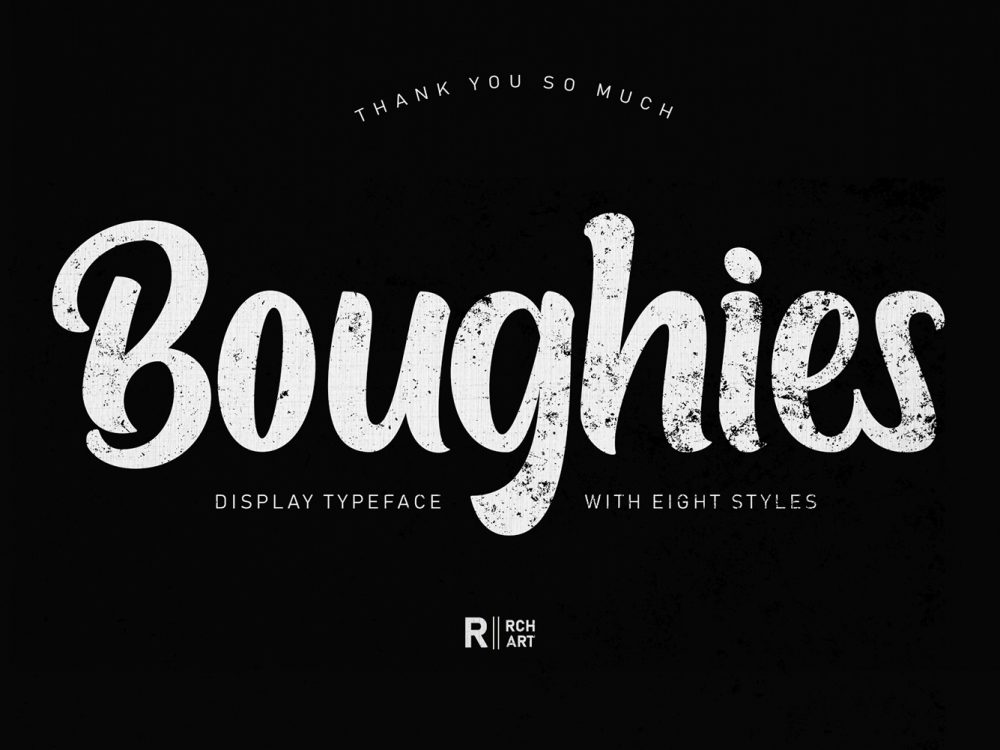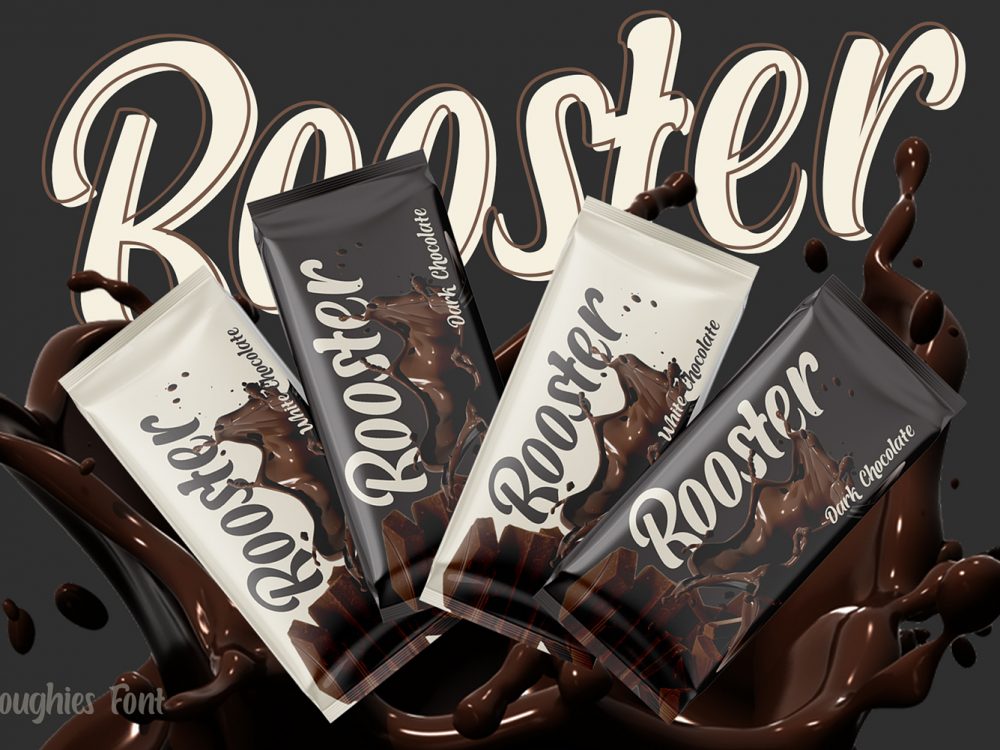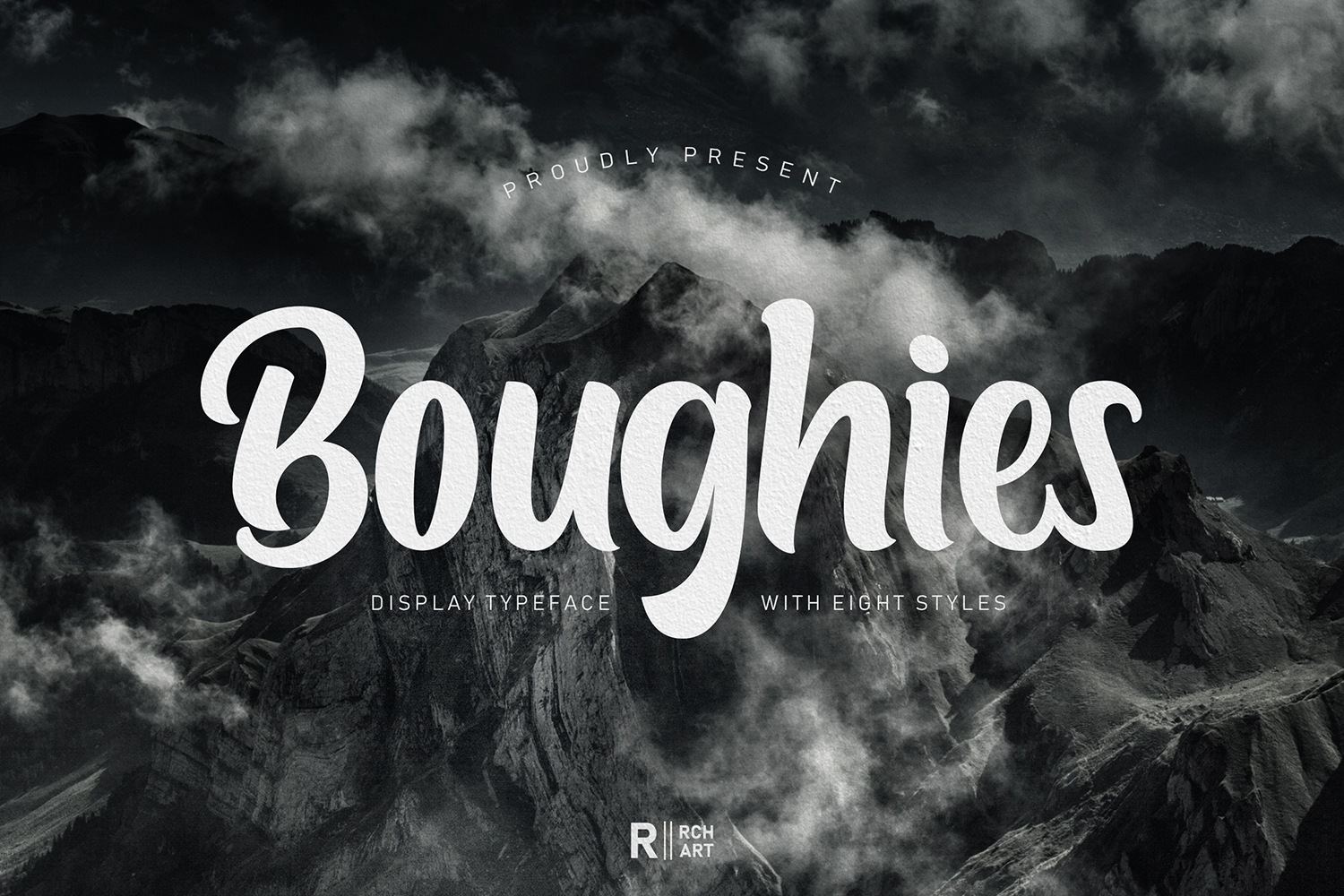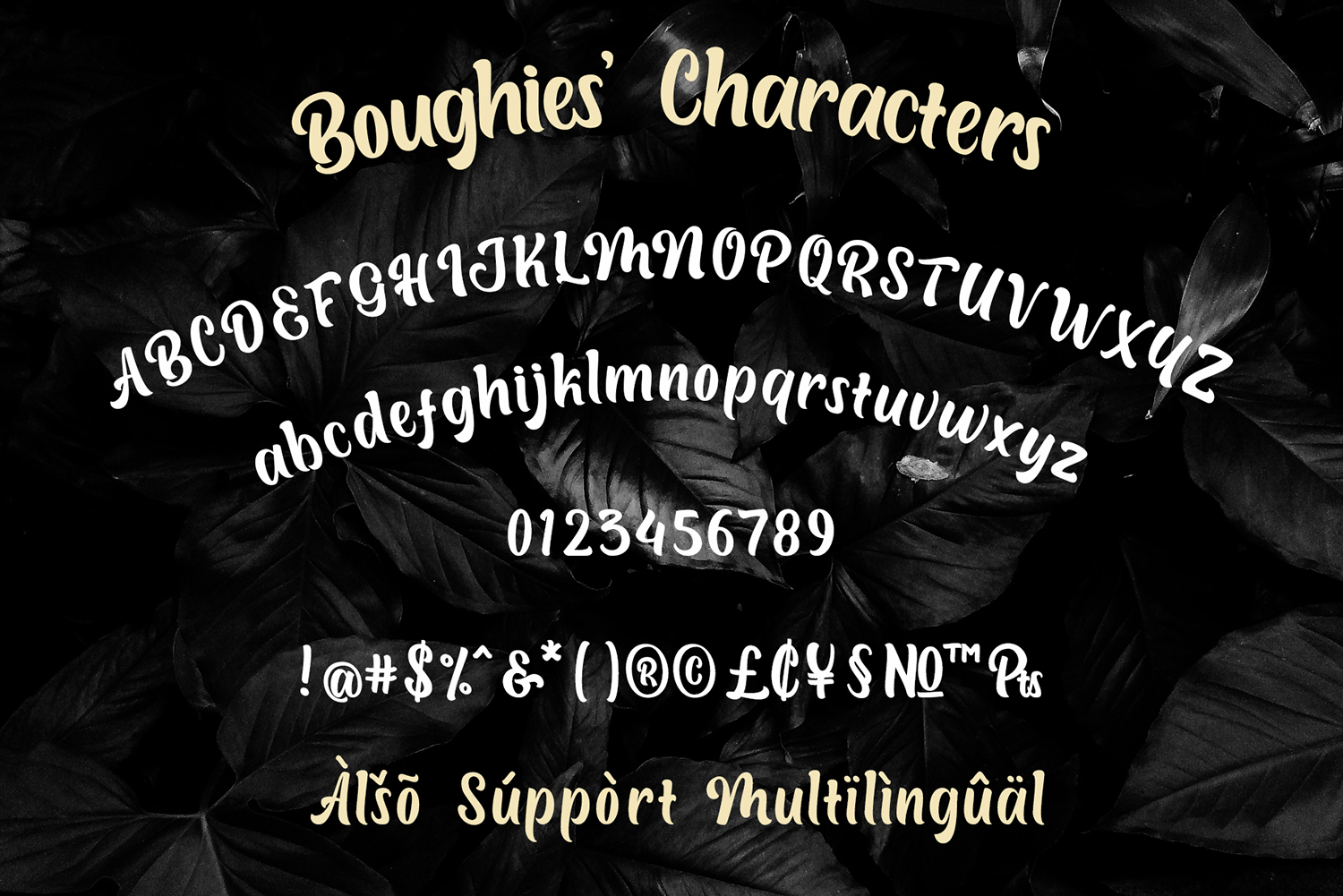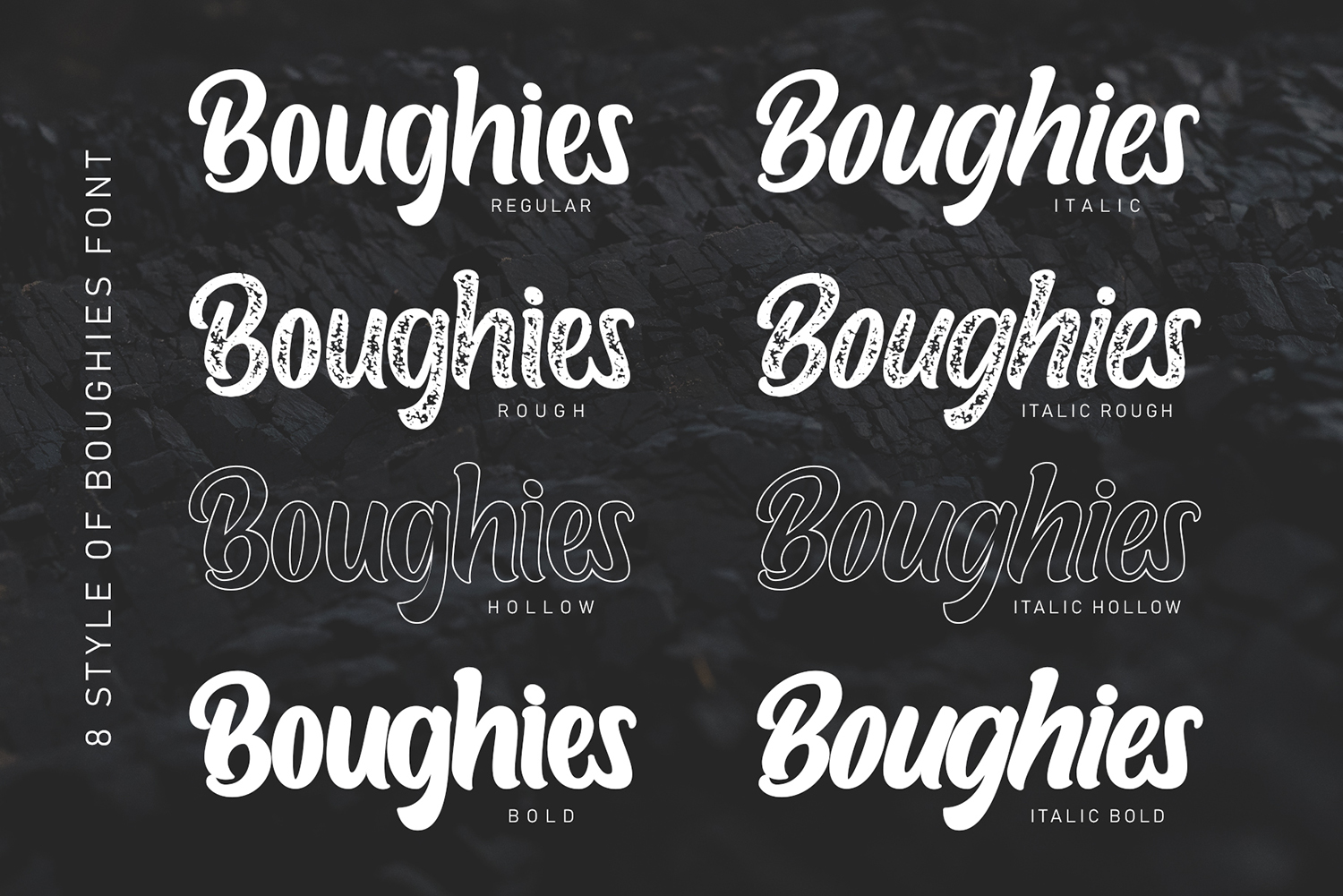
Free Font Boughies
Free Font Boughies is a stylish bold handwritten font that mimics a brush and has an elegant style. This font will help you create unique design projects and improve your professional level. Use this font to create memorable posters, wedding invitations, cards, branding, flyers, and more. If you like it don’t forget to check out the full version.